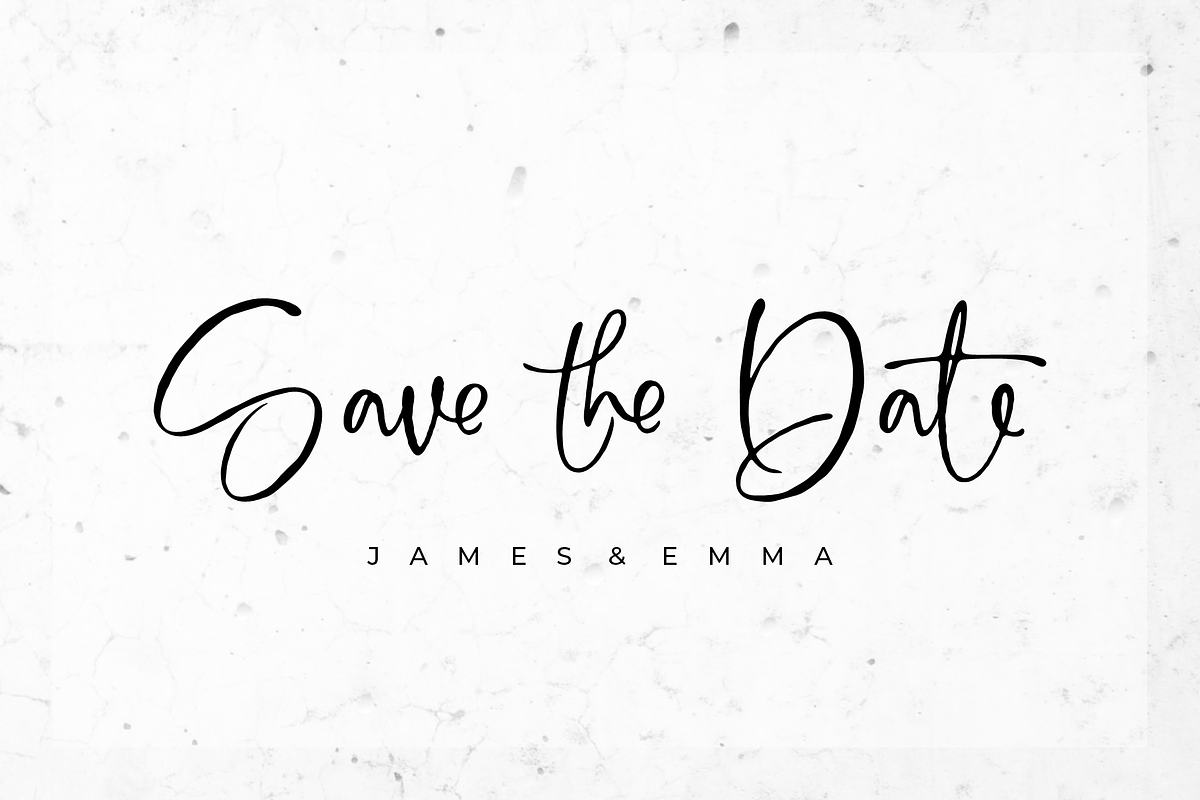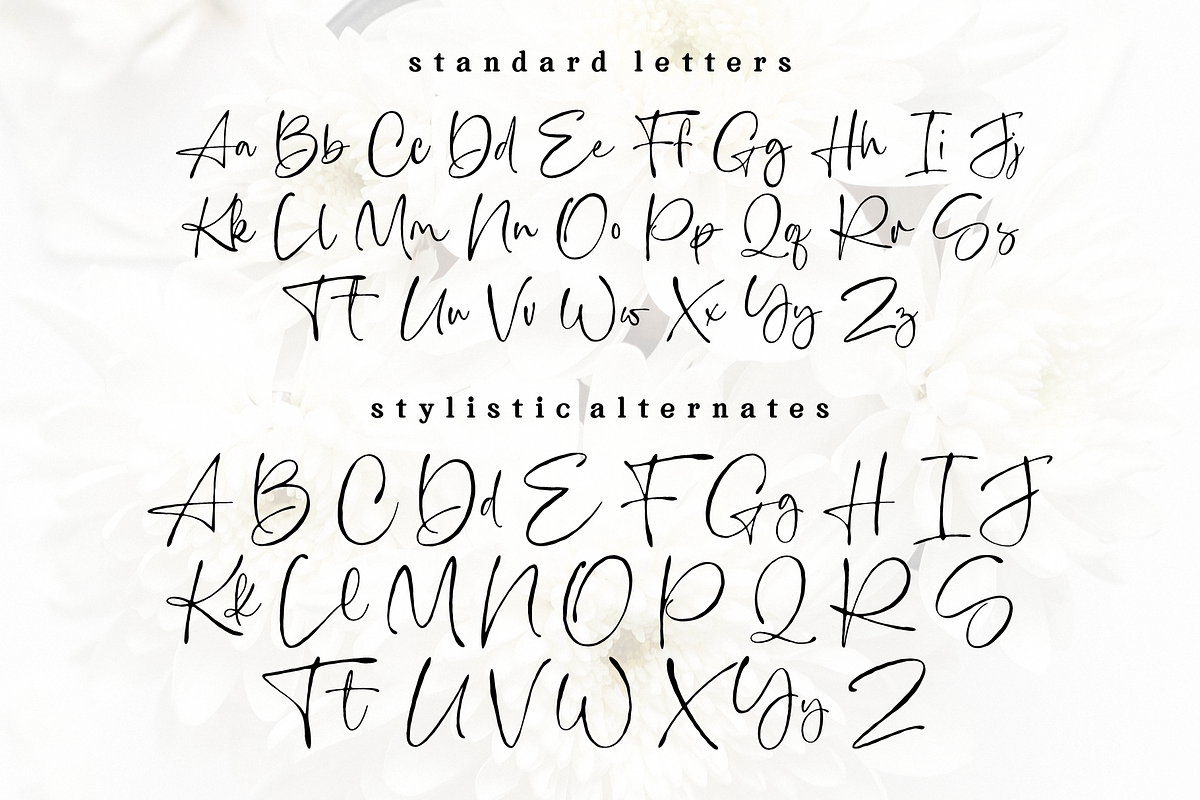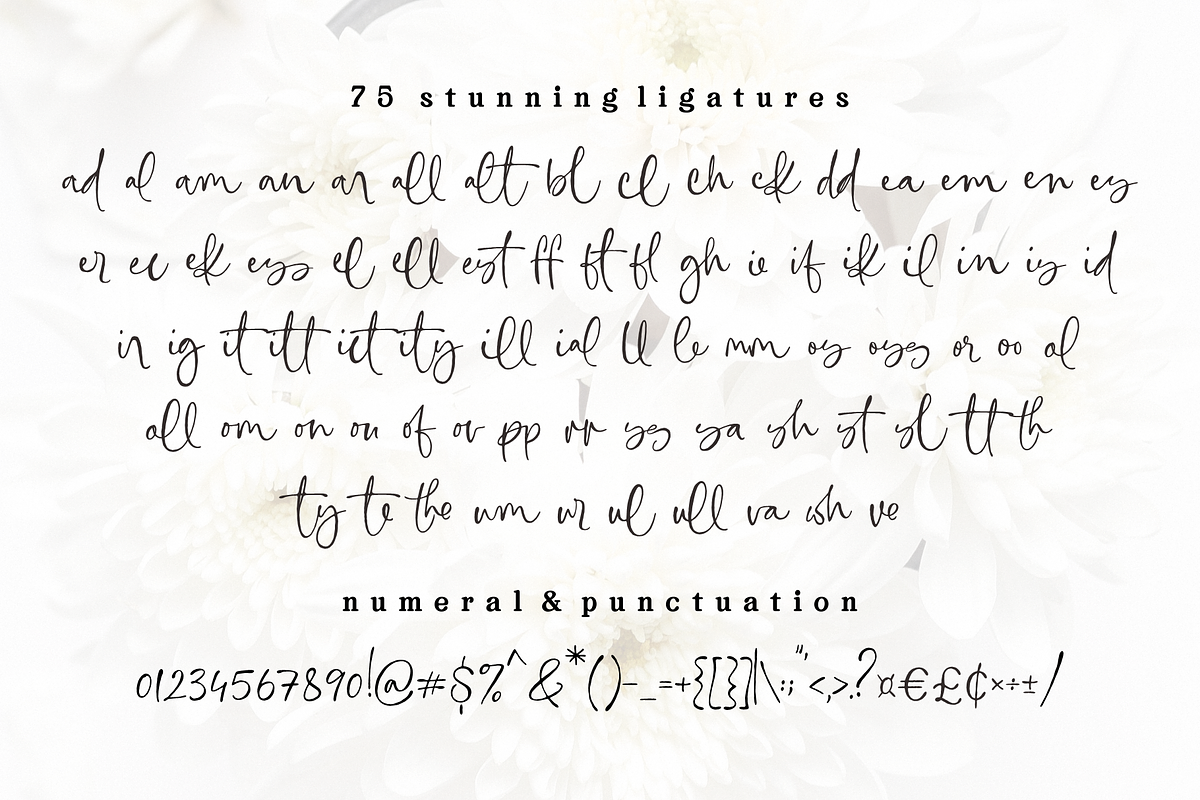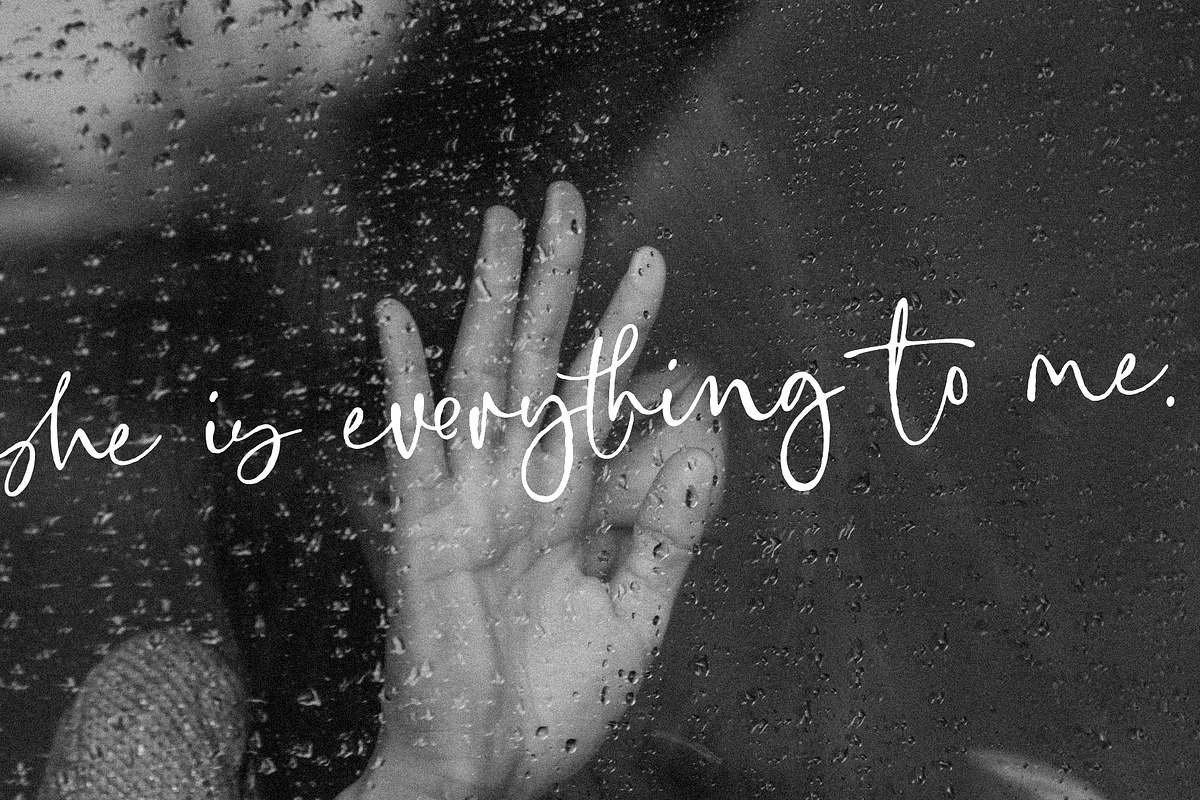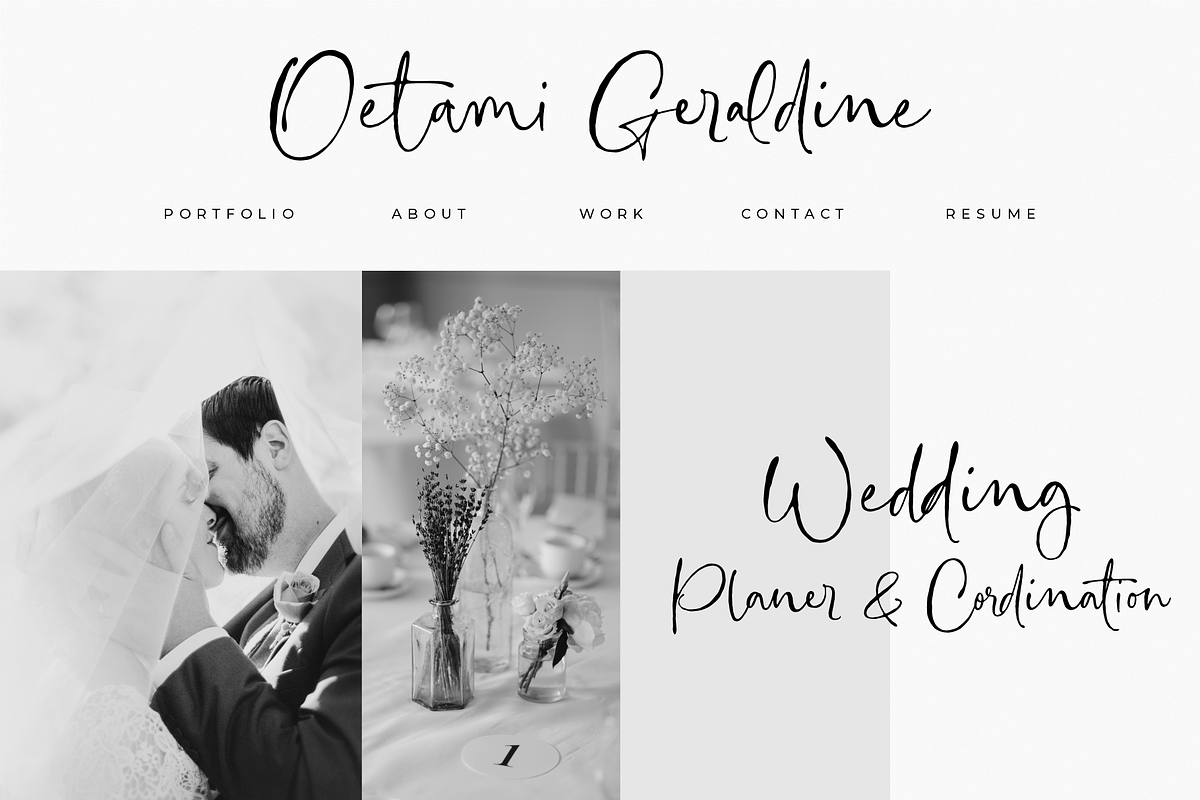
Fleur Marche – Modern Calligraphy
Fleur Marche – Flawlessly fluid and modern calligraphy font with casual ink flair. Fleur Marche was designed in a beautiful, hand-lettered style that looks as though it was written by hand. It includes over 75 gorgeous ligatures and a full set of uppercase alternates. I used a more natural handwriting style for this font instead of straight-up calligraphy. This was our goal in designing Fleur Marche – to make a script that looks as natural as possible. Be Unique. Be Creative. Be You with Fleur Marche.
Fleur Marche features:
- A full set of upper & lowercase characters
- 75 Gorgeous Ligatures
- Uppercase stylish alternates
- Some lowercase alternates